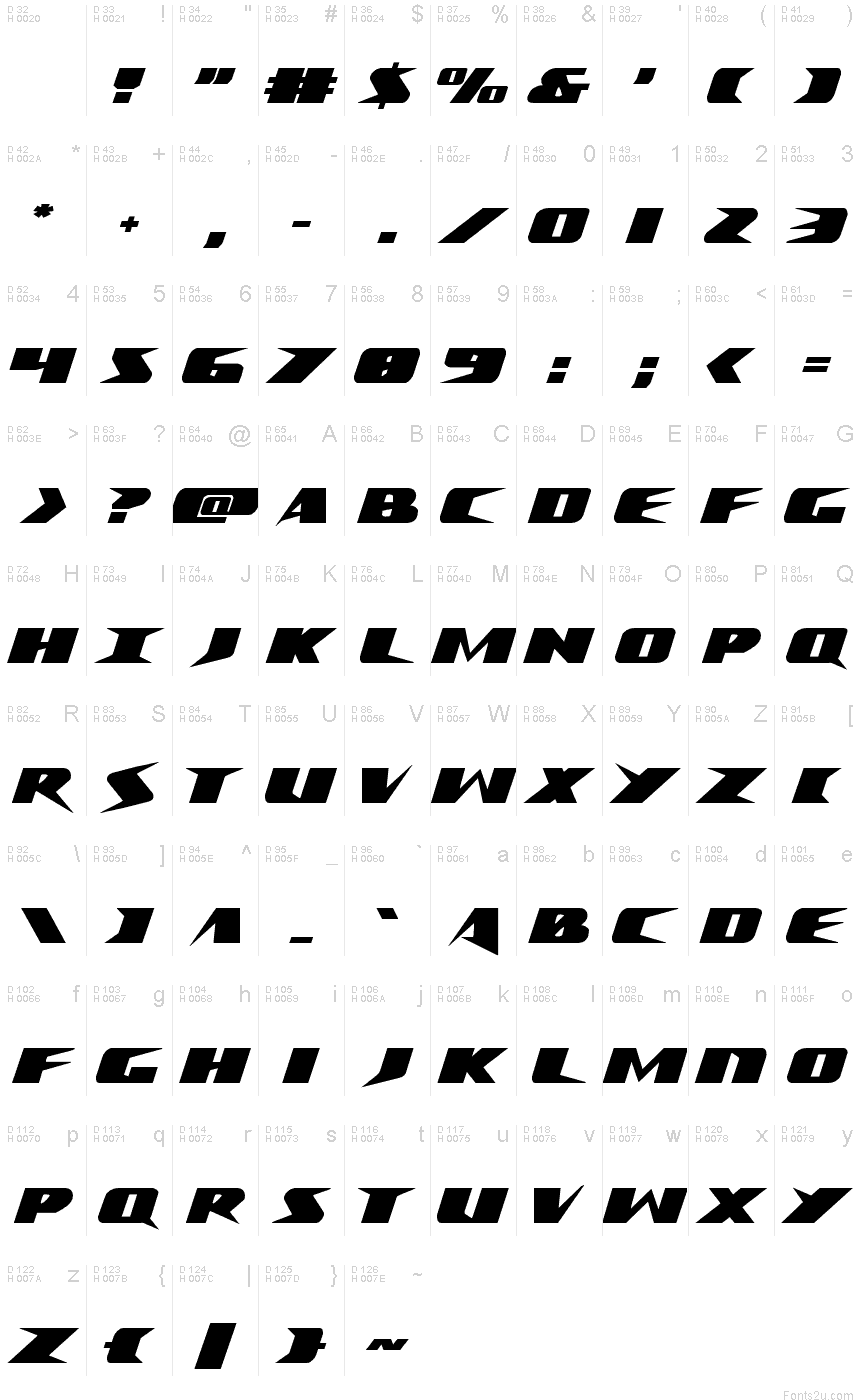
Crime Syndicate by Iconian Fonts is a free futuristic display font with broad, forward-leaning capitals. Deep diagonal cuts and sharply tapered joins give the lettering a machine-tooled profile. The silhouette feels fast and aggressive.
A motorsport team or performance-parts brand could use it for an assertive product identity. Its stretched proportions also suit racing posters, game title screens, and electronic music merchandise. There, the sliced letterforms can become a badge or dashboard interface, not just neutral text.
Crime Syndicate